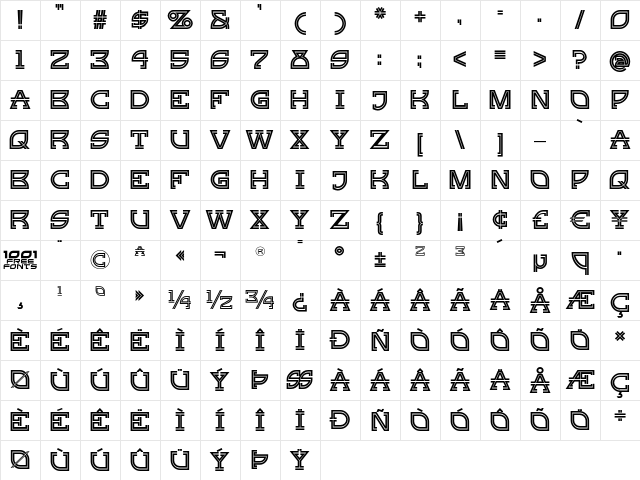
Ginger Peachy NF Regular
Regular · Nick's Fonts Nick Curtis ·
Design Context for Ginger Peachy NF Typeface
Ginger Peachy NF is a composed and adaptable typeface that performs quietly and consistently across a wide range of design contexts.